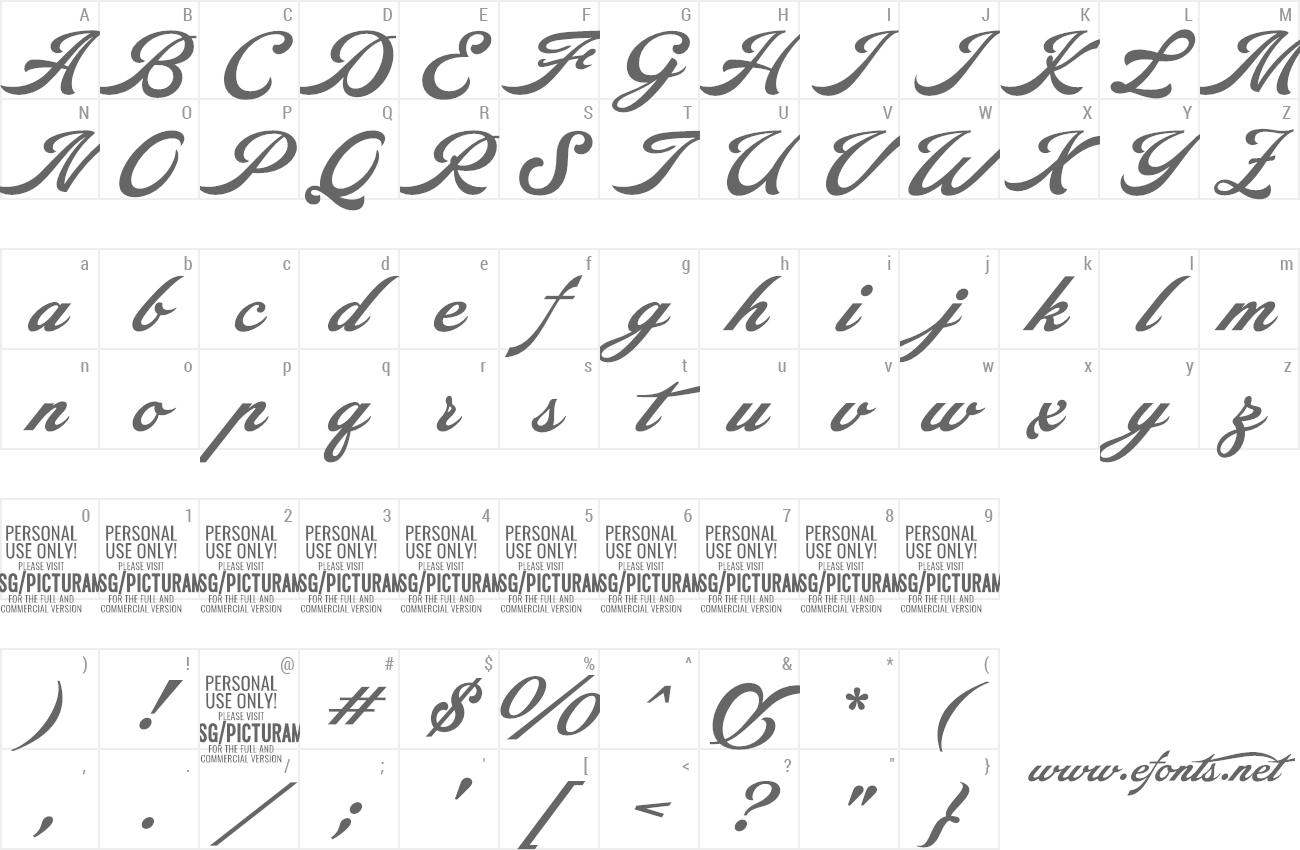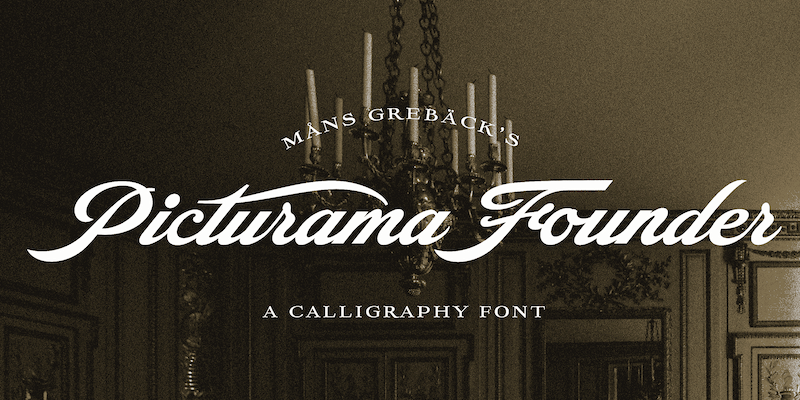
Preview and download Picturama Founder Font. Created by Måns Grebäck in Script Calligraphy styles with Free for personal use license.
NOTE: This font is for PERSONAL USE ONLY! To purchase a commercial license, visit: http://mn.sg/picturama-founder Picturama Founder is a beautiful script font that elegantly bridges the gap between time-honored formality and contemporary innovation. Every curve and connection in this formal calligraphy type speaks of finesse, flowing with an unmatched grace reminiscent of vintage labels or classic vinyl covers. For questions, please visit www.mansgreback.com/faq |